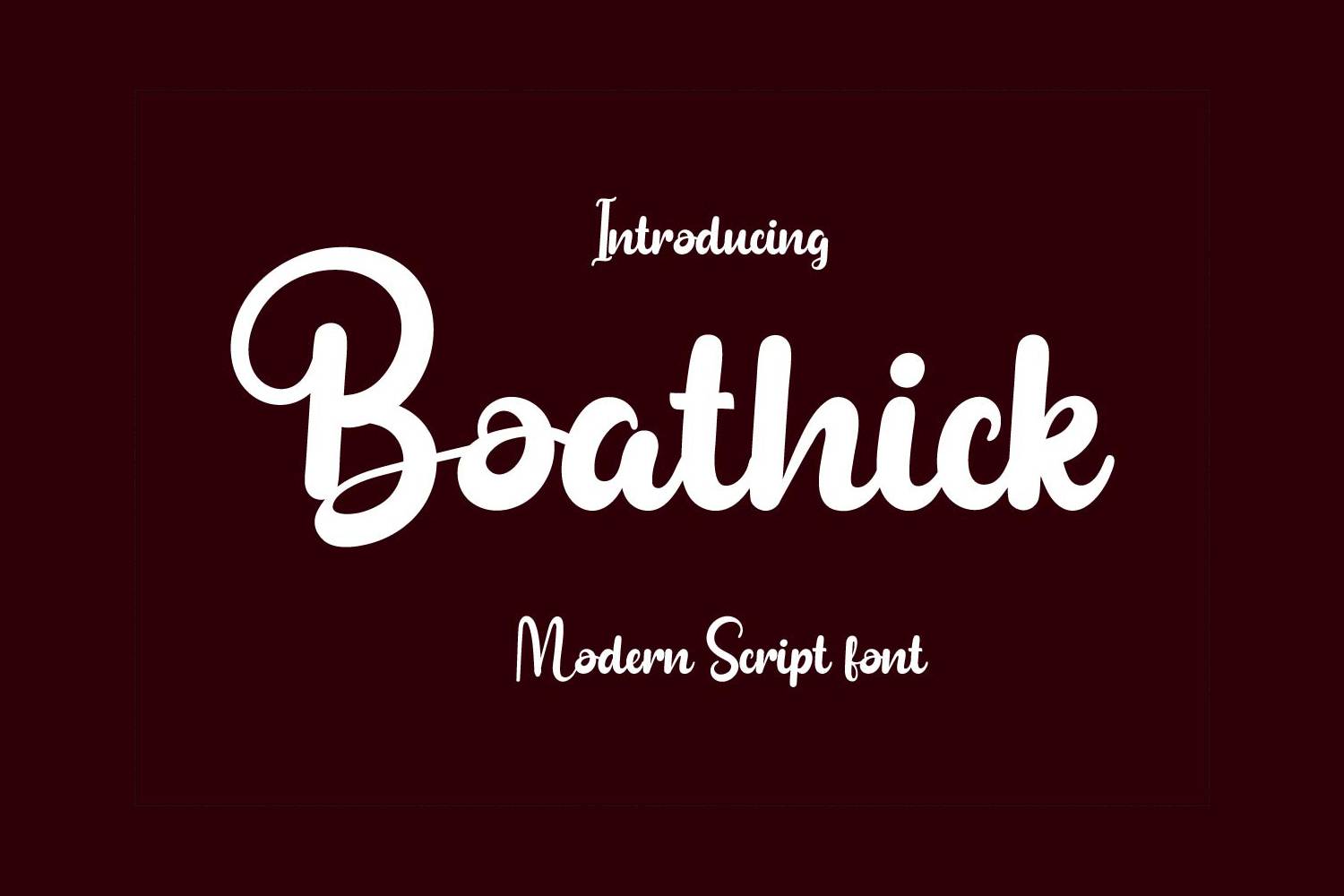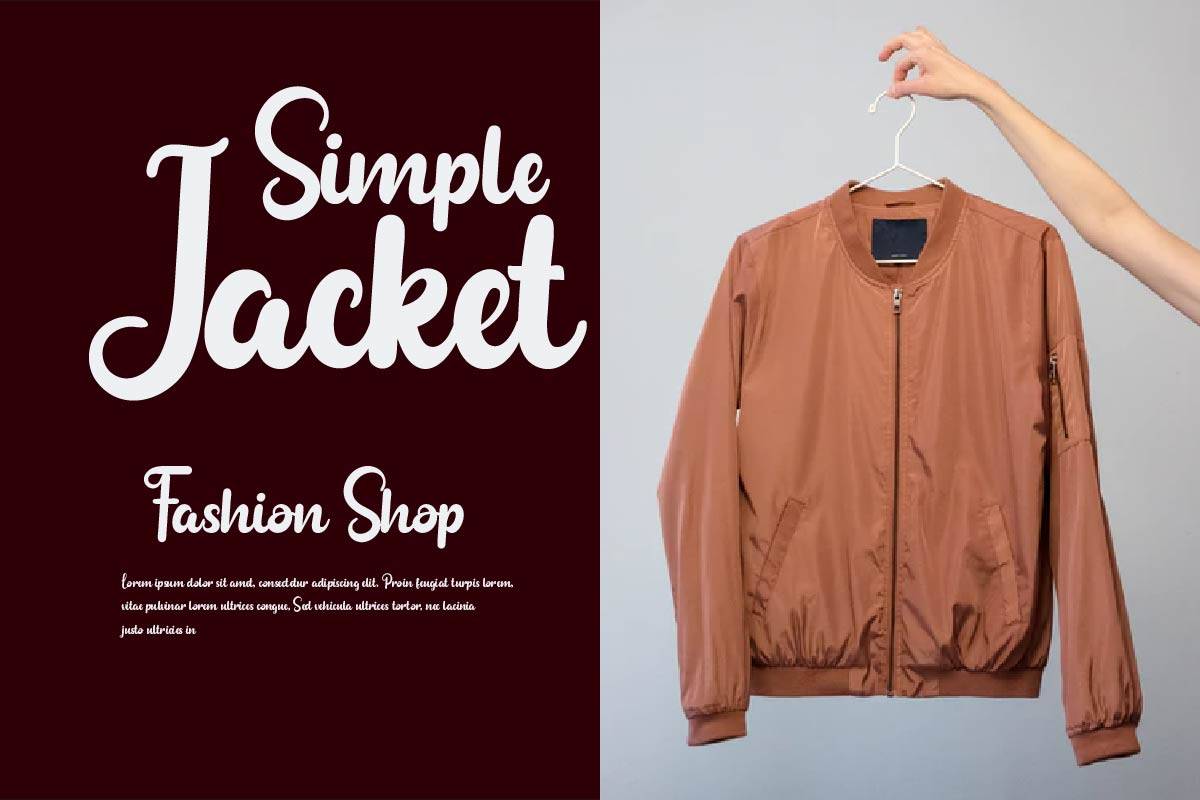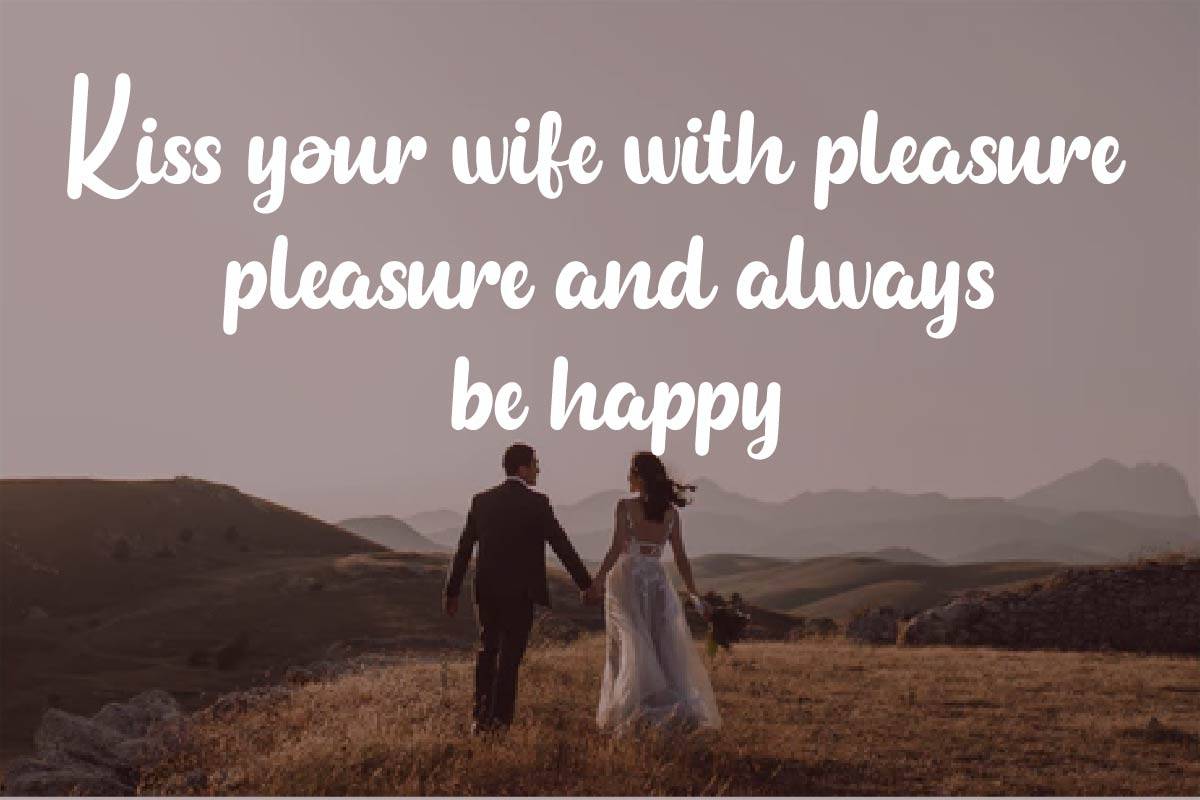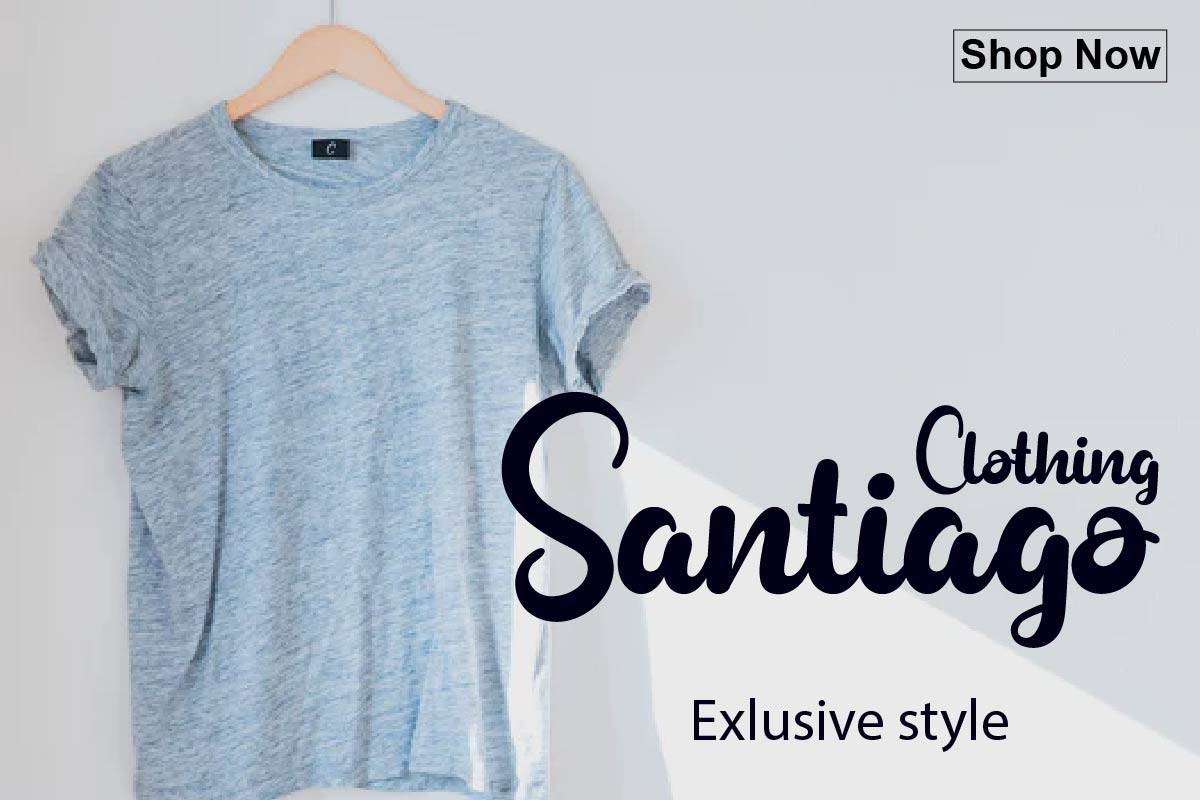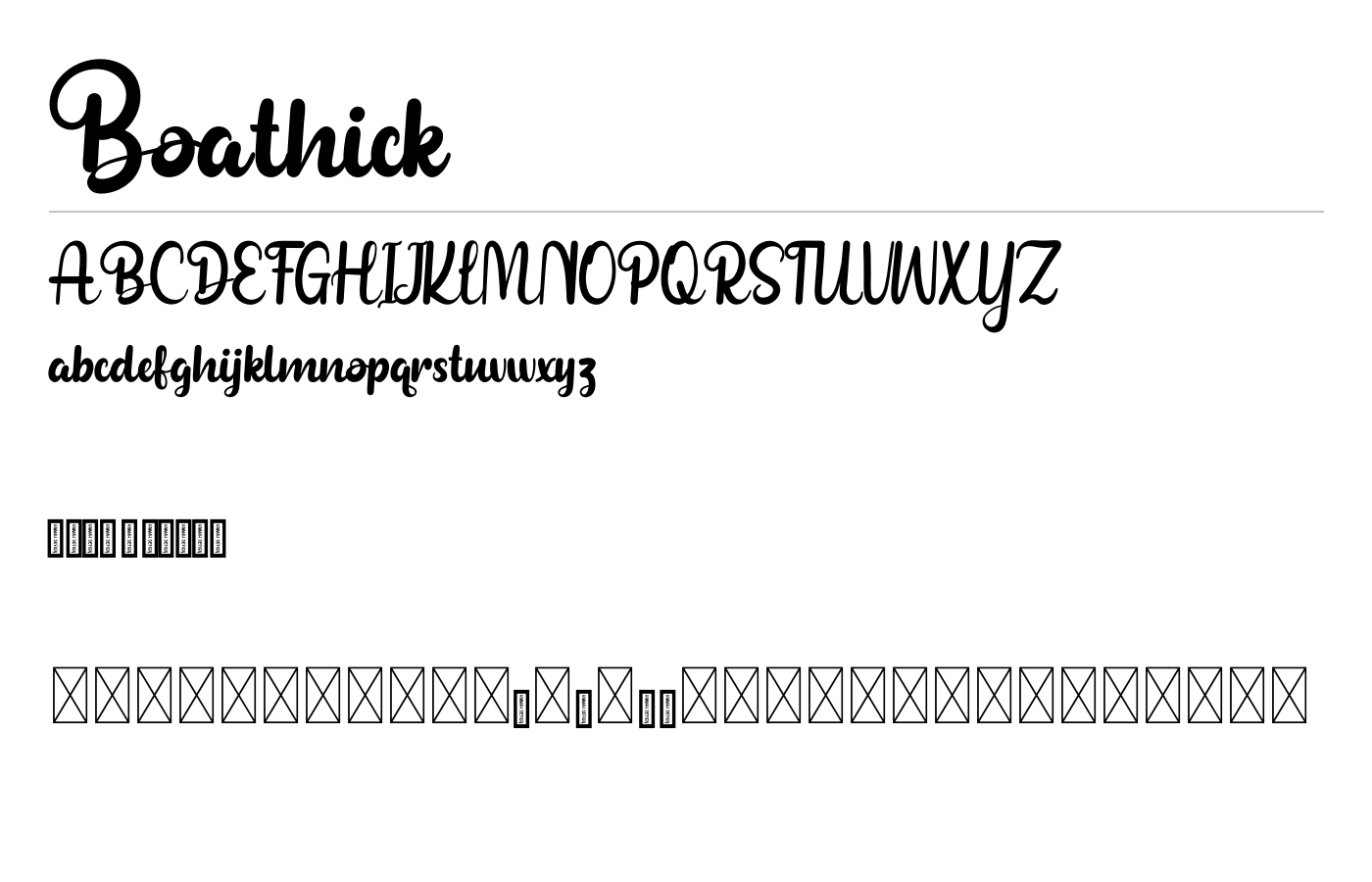
Boathick is a playful and charming script font featuring rounded, bold strokes that give it a friendly and approachable personality. Its smooth, connected letterforms with moderate contrast and unique character shapes make it ideal for creative branding, packaging, and headlines where a warm, informal touch is desired. This font works particularly well for projects that want to convey a cheerful and casual vibe without losing readability.
Boathick Font
About Boathick Font
| Font family | Boathick Font |
| Designer | Khamdan Ngabdul Khakim |